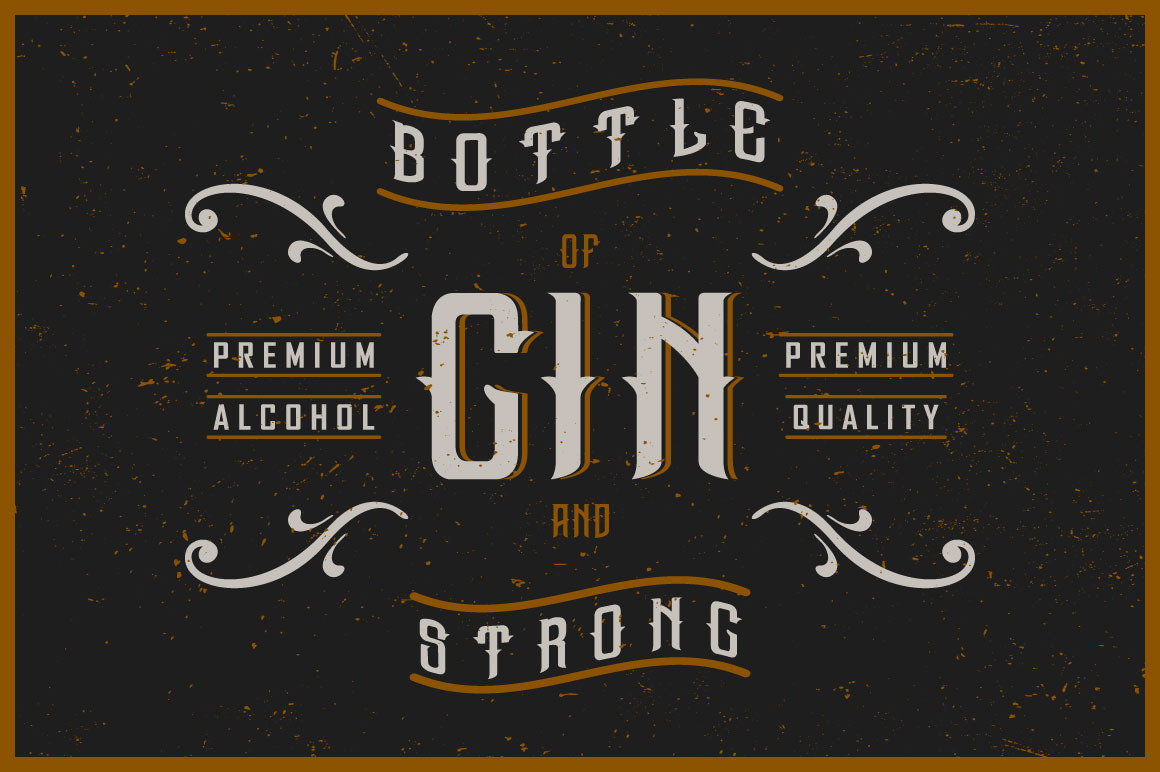
Gin label font
Introducing a vintage look label typeface named "Gin". It's made in strong and vintage label style. Typeface is good looking on any labels design.